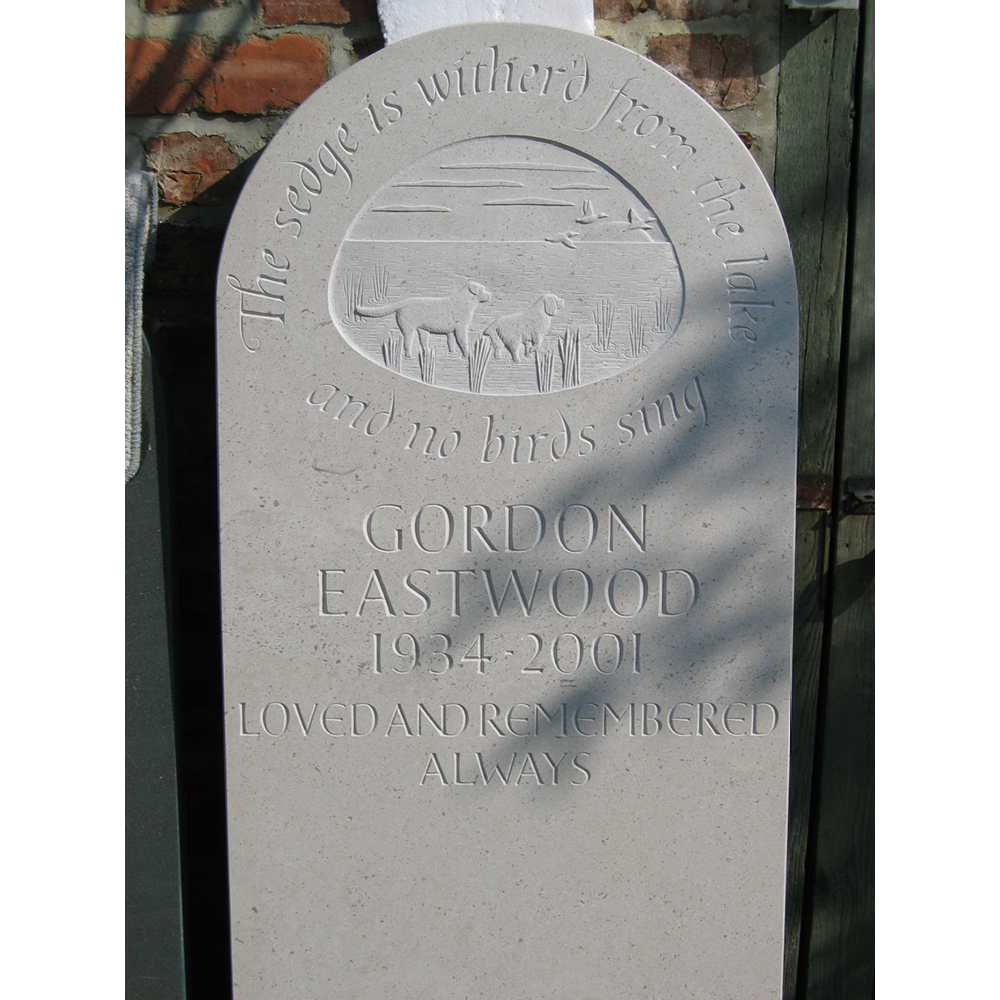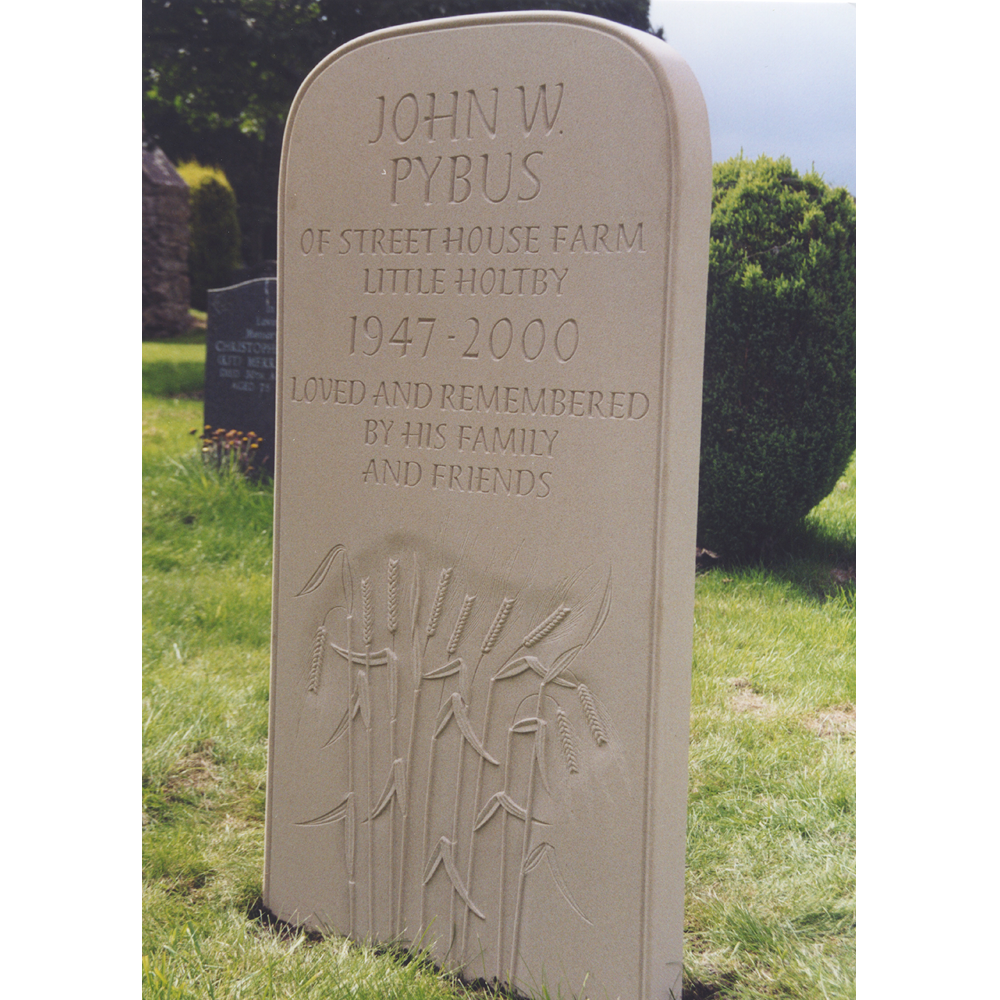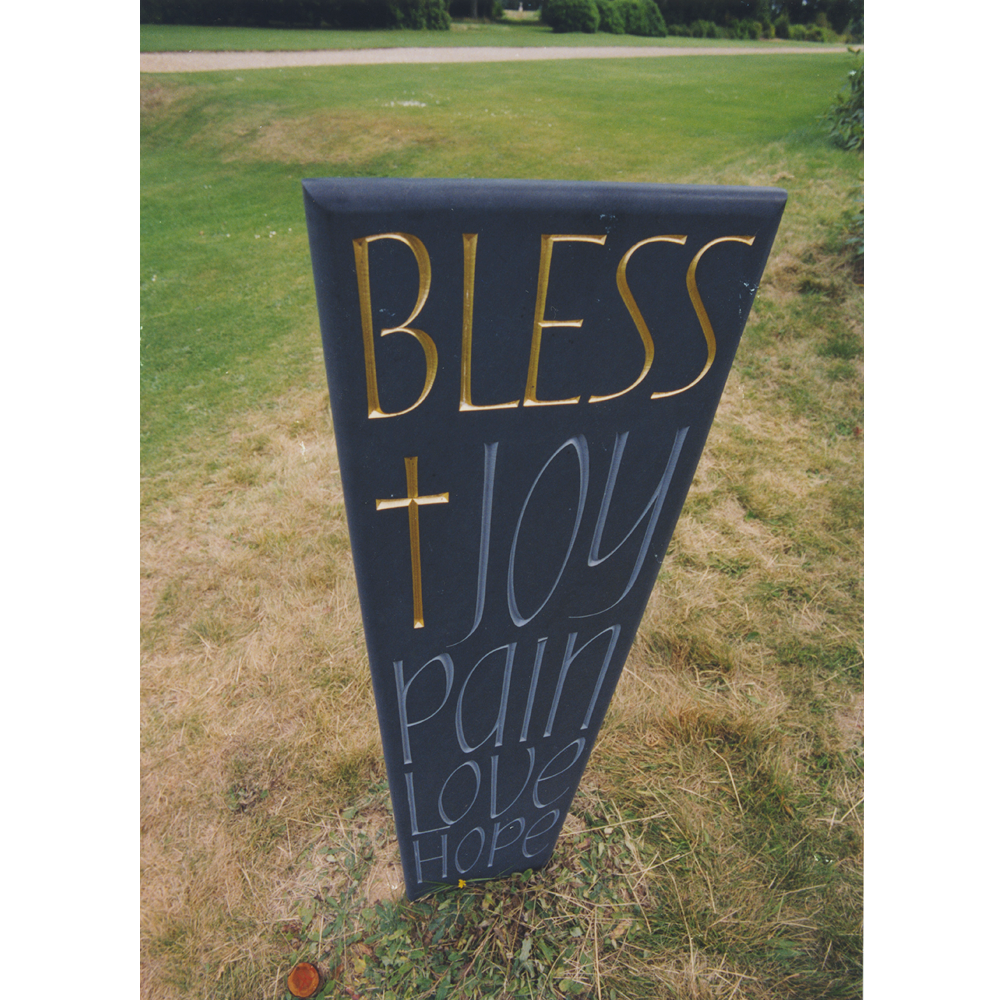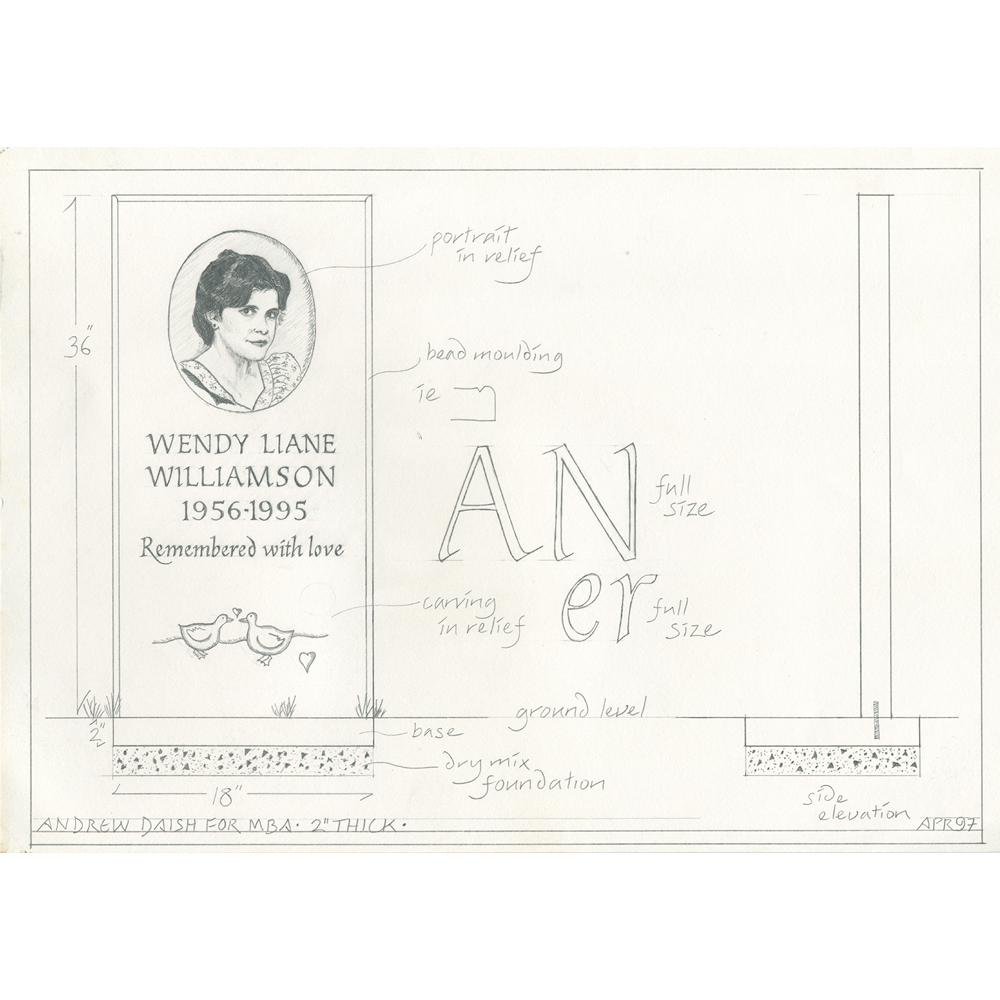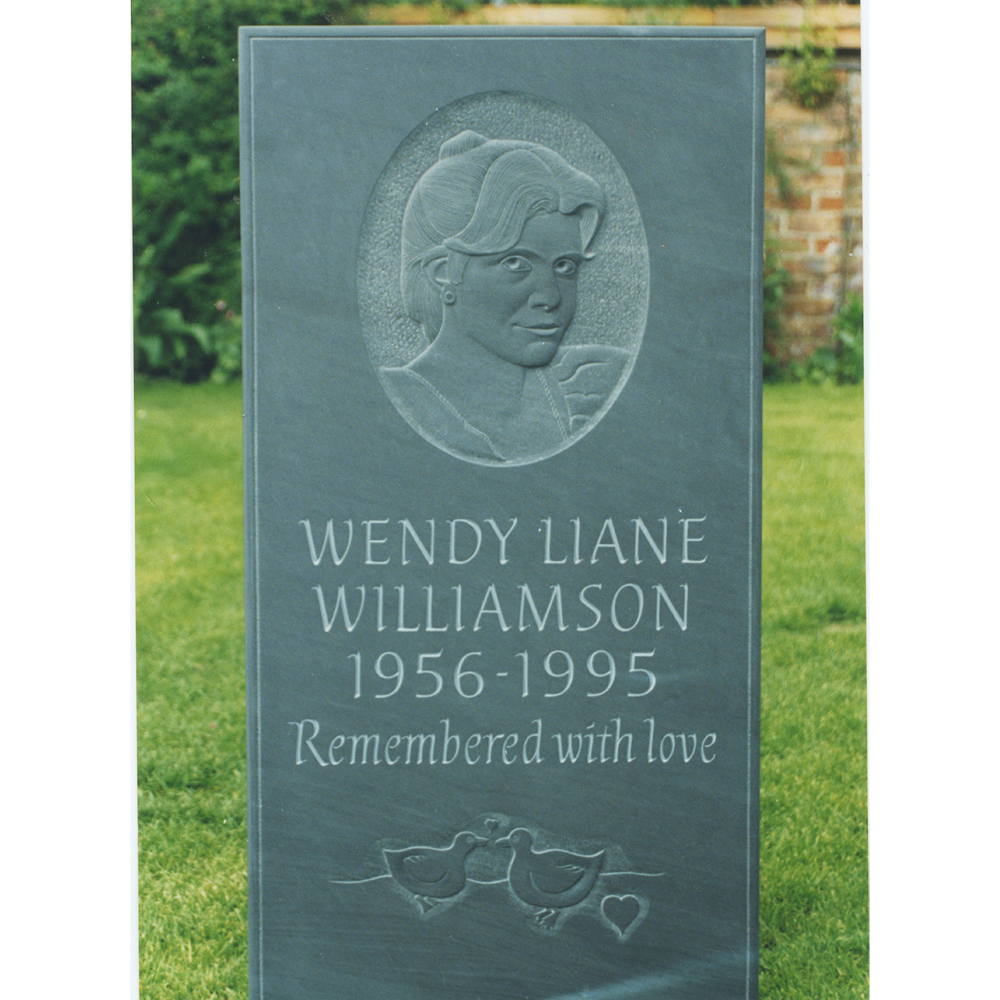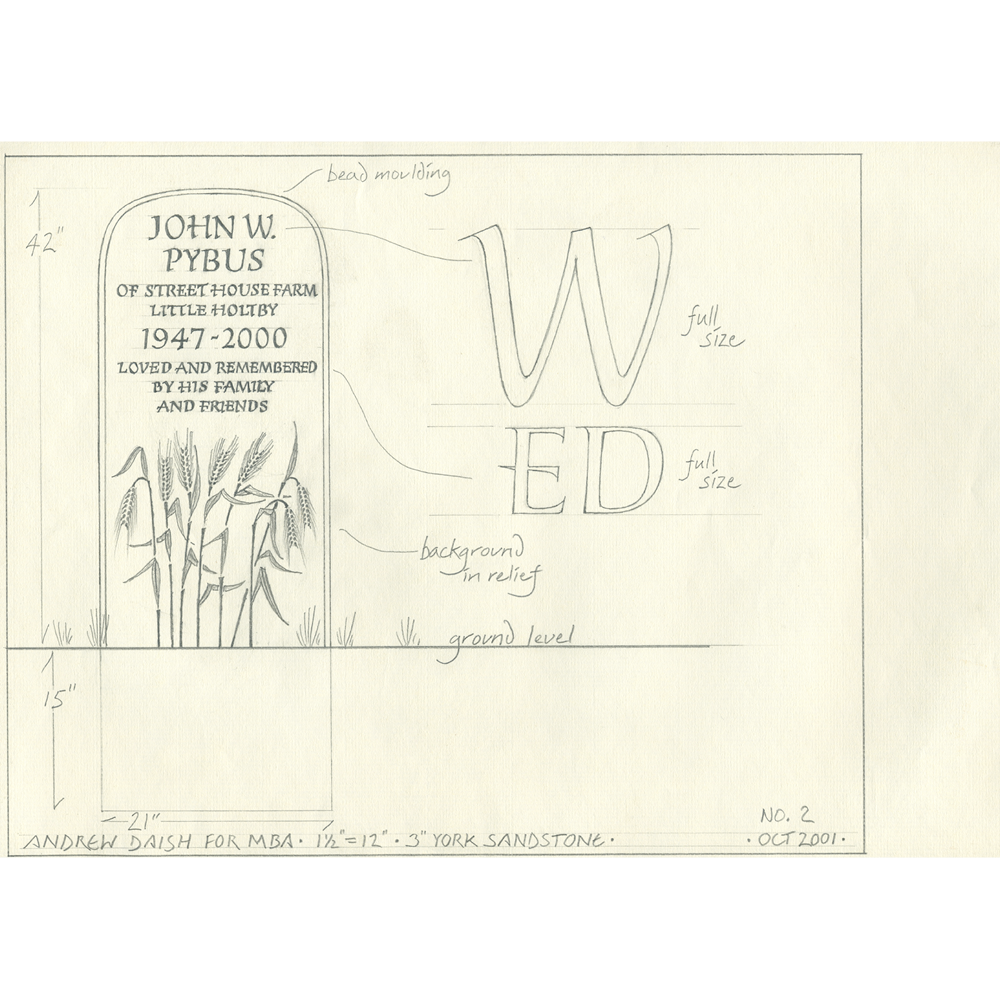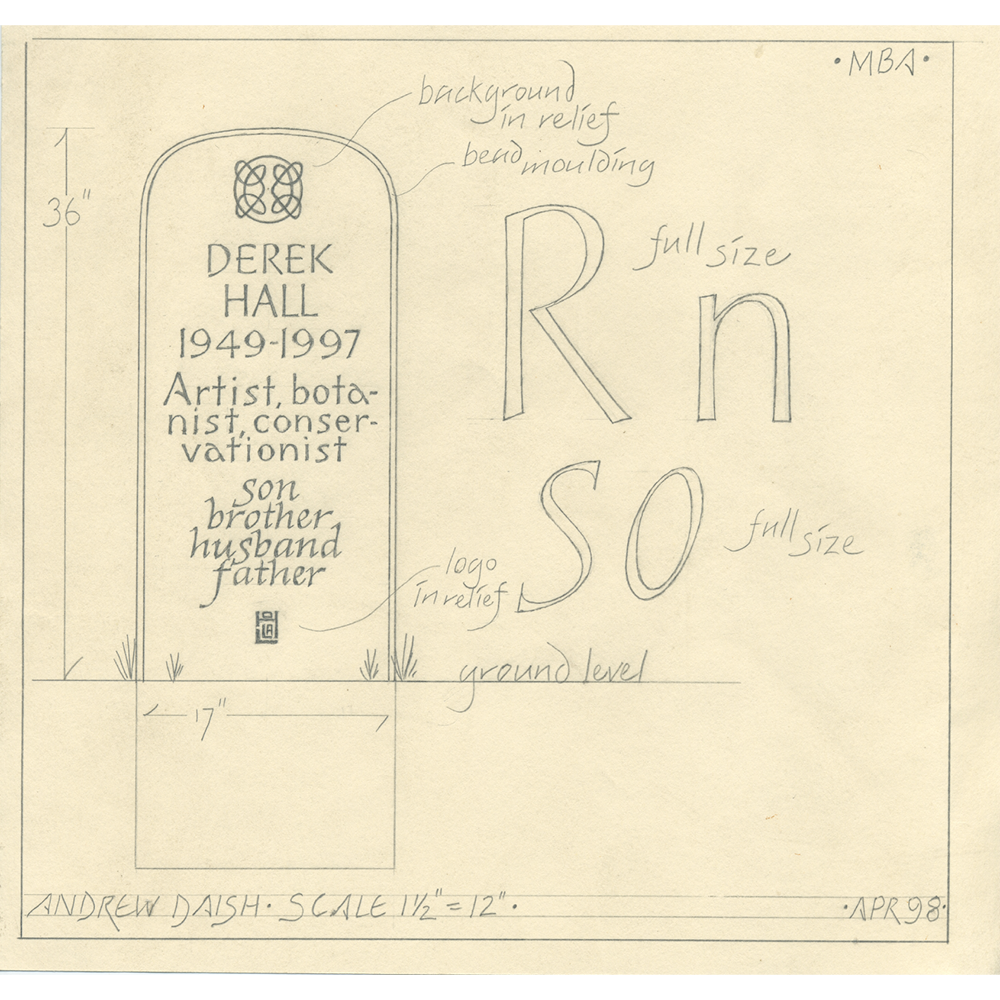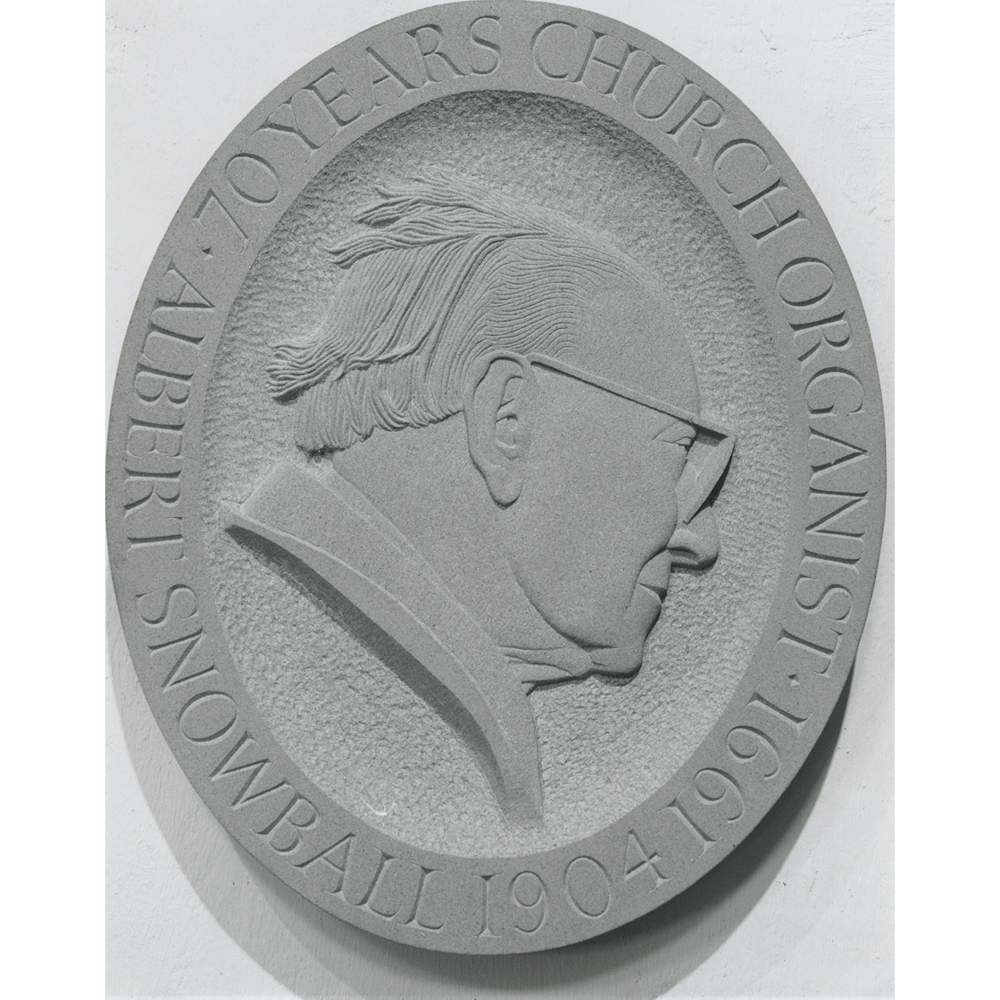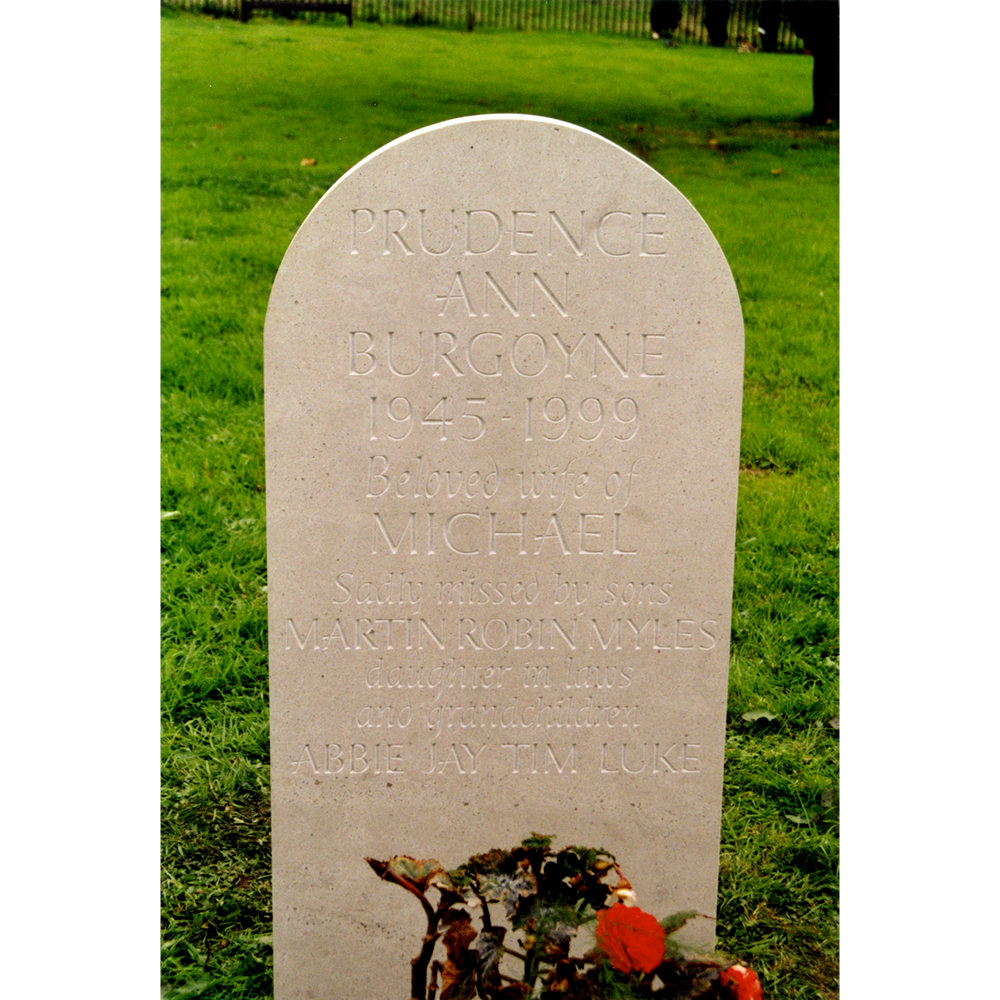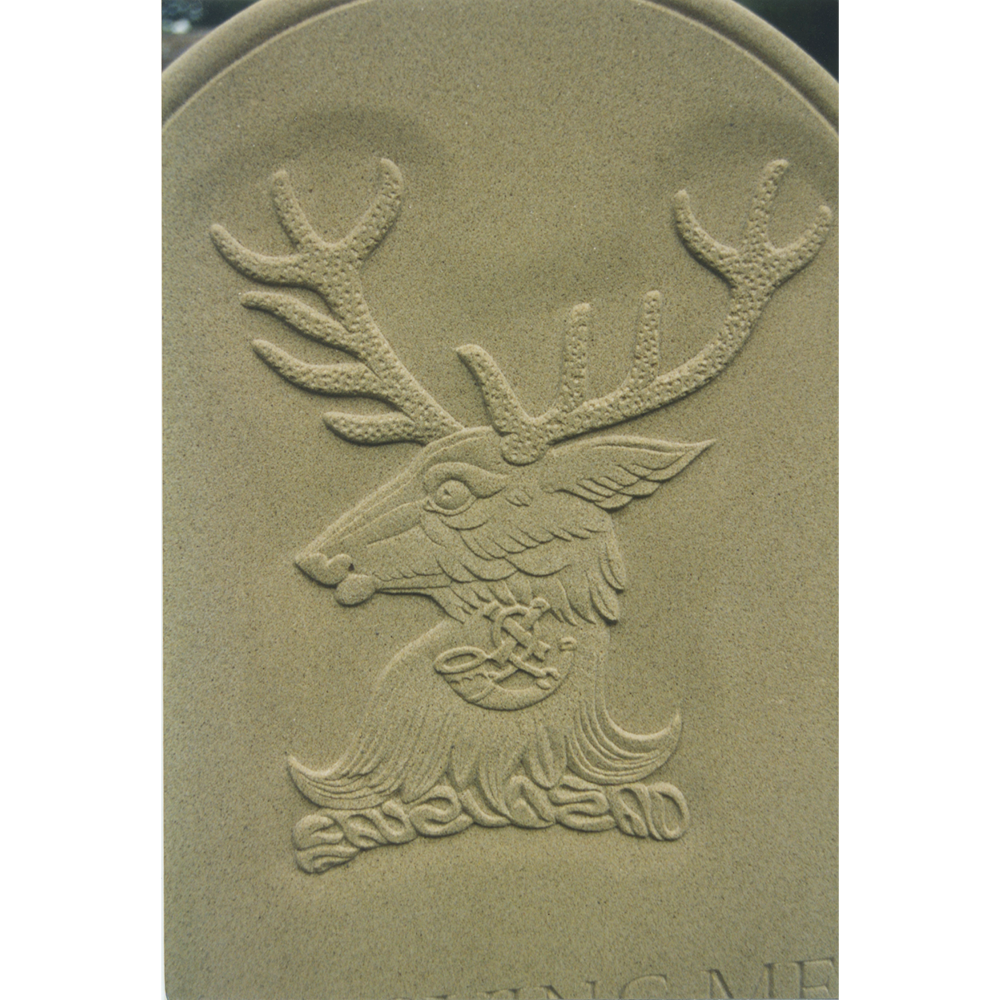
I am a carver and letter cutter based in York who designs and makes commissions including memorials, plaques, house signs, sundials and public art. I work mainly in stone and wood, though I have worked in other media including glass.
I started my carving career in 1988 as an Architectural Carvers apprentice at Dick Reid’s Workshop in York where I took part in restoration work on stately homes including Spencer House in London. I was then fortunate enough to work with the late David Kindersley in Cambridge where I learned my lettering skills.
I have enjoyed working collaboratively with the general public, artists, craftsmen and local authorities alike, in different parts of the UK, since the early 90's. When designing memorials, my approach is to try to be sensitive to my clients needs and to try to interpret their "vision". As can be seen from my example photos, I am comfortable designing in both traditional and modern styles and feel strongly that the end design should be both appropriate and an accurate reflection of the character of the remembered. Above all, a memorial should be a thing of beauty and, potentially, a pleasant place to visit.